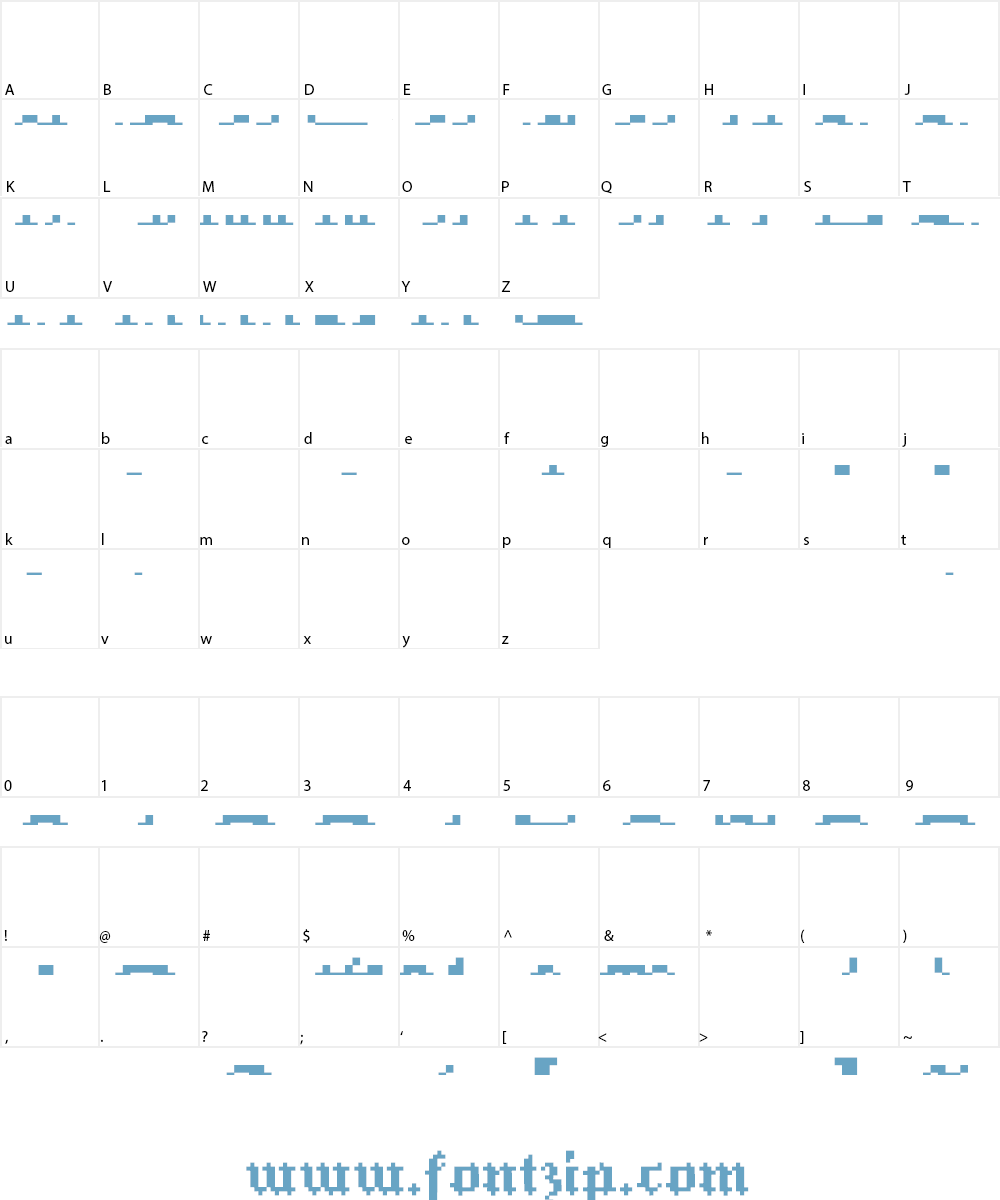
Pixelfont for aliased displays with 8pt or multiple of 8. Includes basic latin characters and some special german glyphs. This font is dedicated to my father.